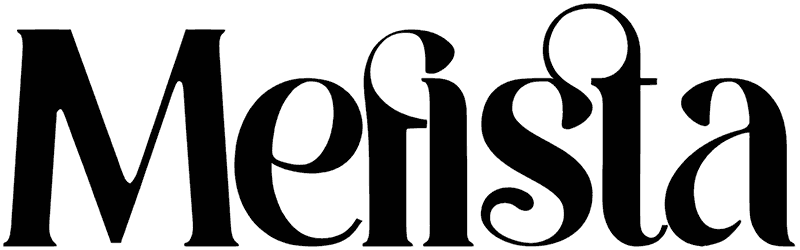
Mefista Font
Mefista is a modern ligature serif font with a well-established and sophisticated design! It provides stunning, bold characters that have creative glyphs and alternatives for impressive typography. Apart from all these fantastic features, it’s fashionable, plus it can be included in logos, invitation cards, branding, magazines, and headlines, or wherever you wish for a trendy, adept font.